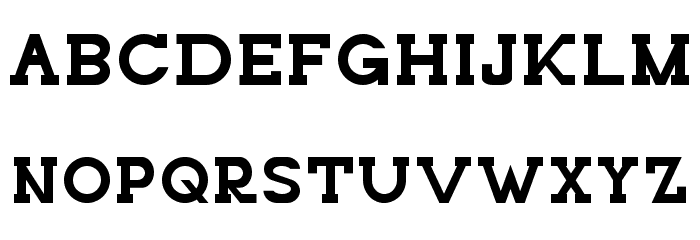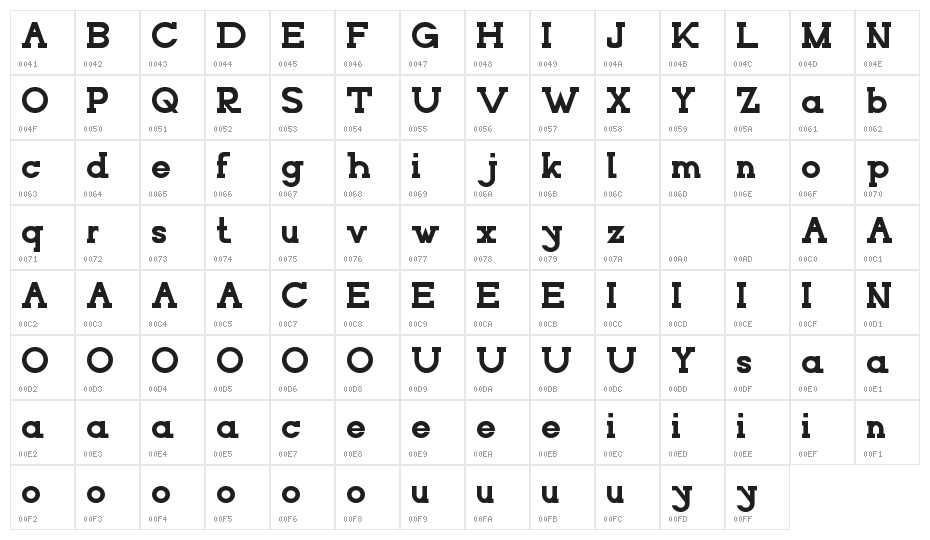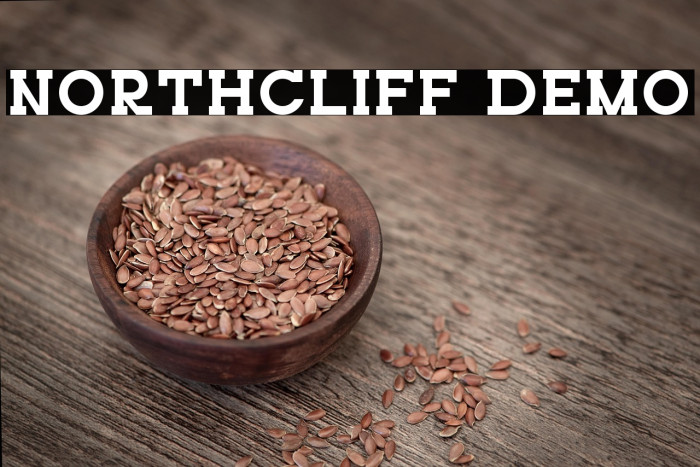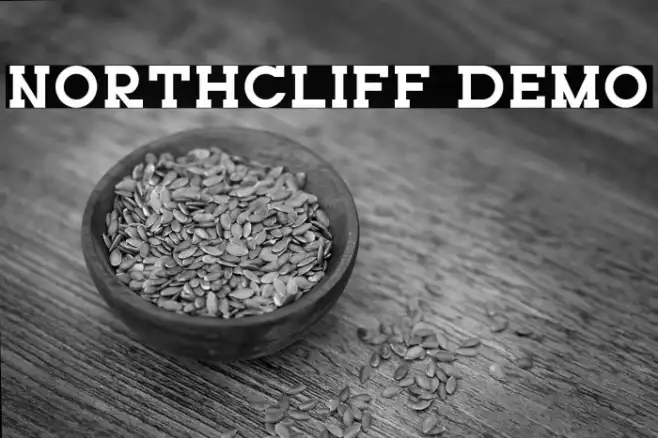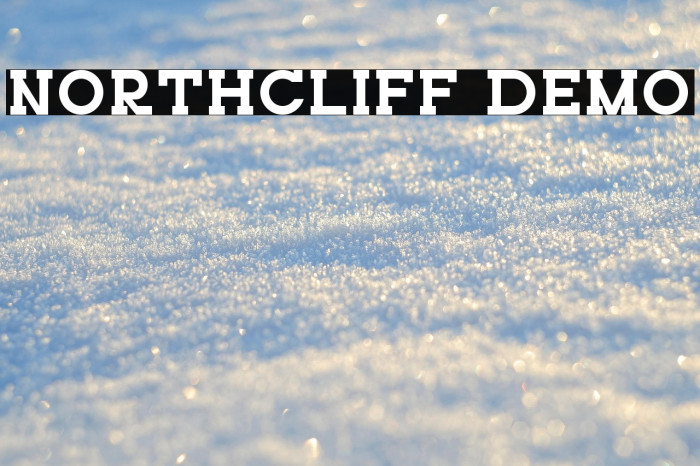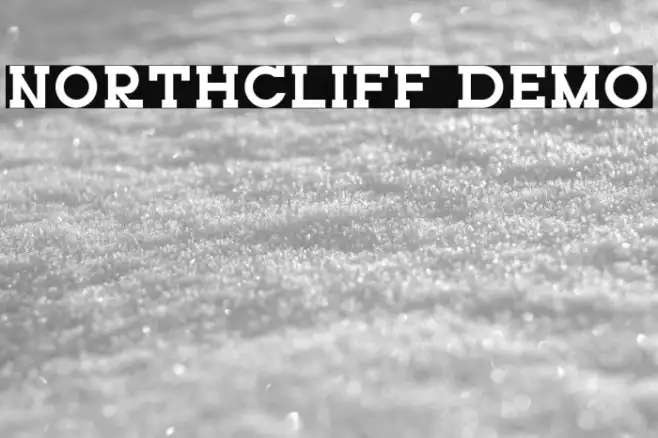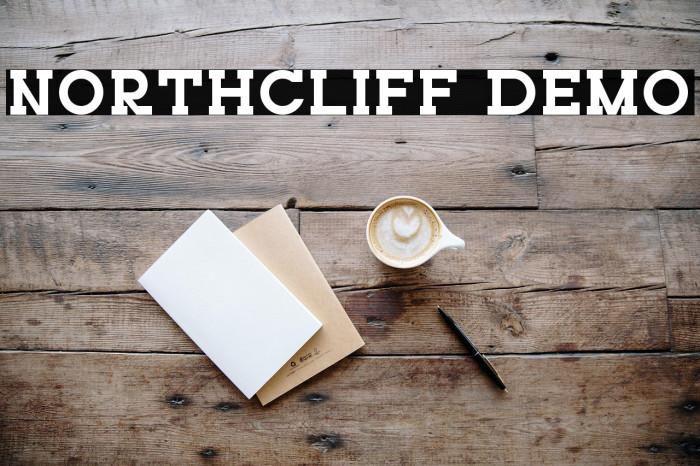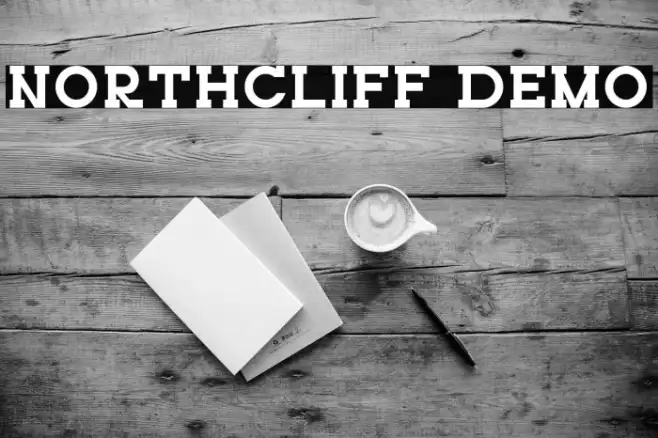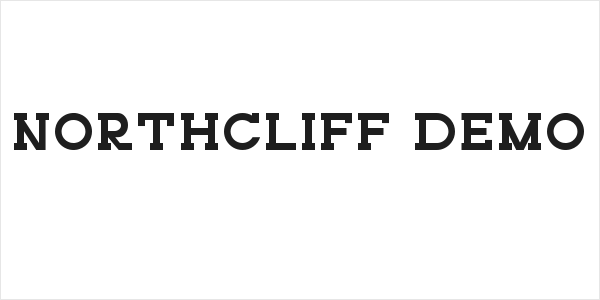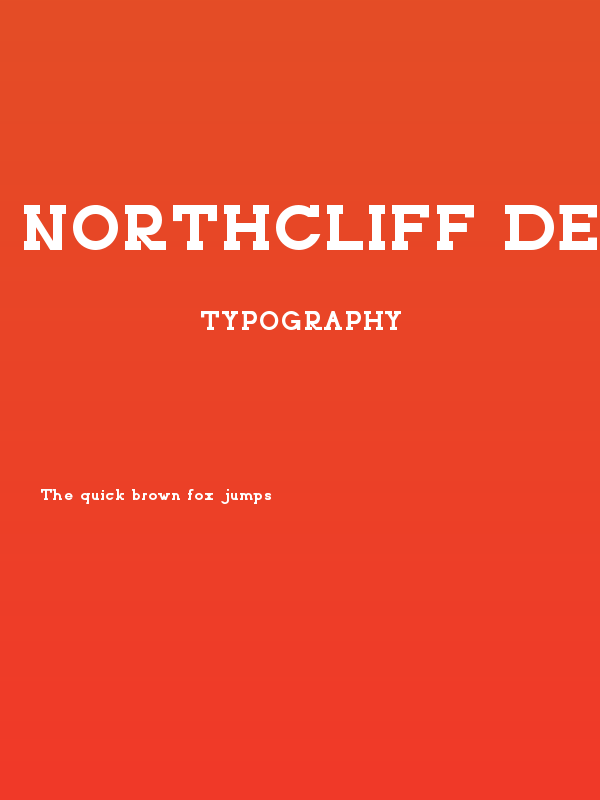
NORTHCLIFF DEMO Font
NORTHCLIFF DEMO Description
This font features bold, geometric letterforms with a strong presence. The characters are designed with a consistent weight and a slight slab serif, giving them a modern yet classic appeal. The uppercase letters are particularly striking, with a uniform height and width that create a sense of stability and strength. The lowercase letters maintain the boldness of the uppercase, with rounded edges that soften the overall look. This font is highly legible, making it suitable for a variety of design applications. The numbers and special characters are crafted with the same attention to detail, ensuring a cohesive appearance across all text elements.
| Overall Style | Modern Classic |
| Proposed Projects | Ideal for branding, headlines, posters, and any design requiring a strong, impactful typeface. |